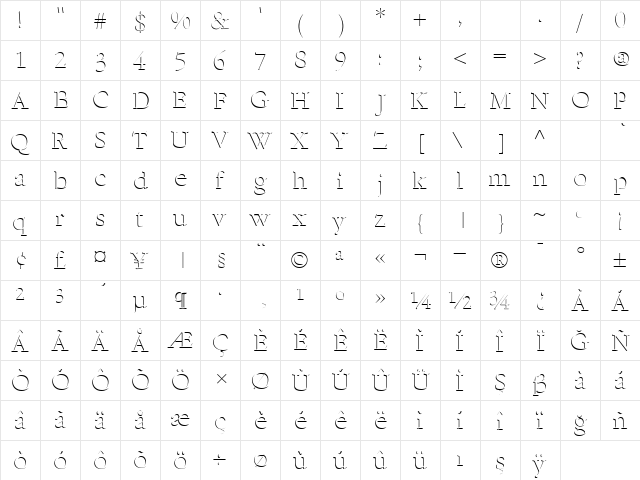
00849 Regular
Design Context for 00849 Typeface
00849 takes a measured approach to typography — its balanced proportions and neutral character make it a reliable workhorse for both digital and print work.